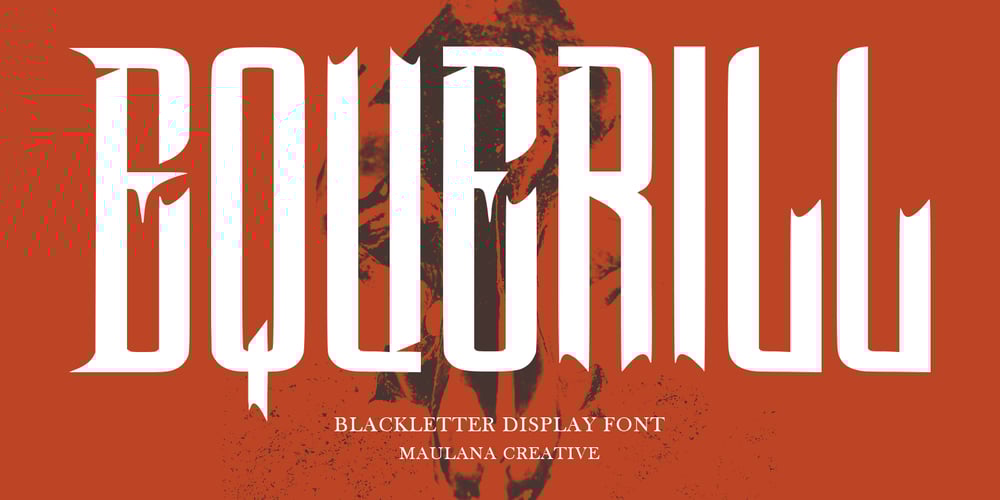
MC Equerill Font Family was designed by Gilang Maulana and published by Maulana Creative. MC Equerill contains 1 styles and family package options. Equerill blackletter horror display font. Heavy stroke, vintage character with alternates. To give you an extra creative work. Equerill blackletter display font support multilingual language. This font is good for logo design, Social media, Movie Titles, Books Titles, a short text even a long text letter and good for your secondary text font with script or serif. Make a stunning work with Equerill blackletter font.